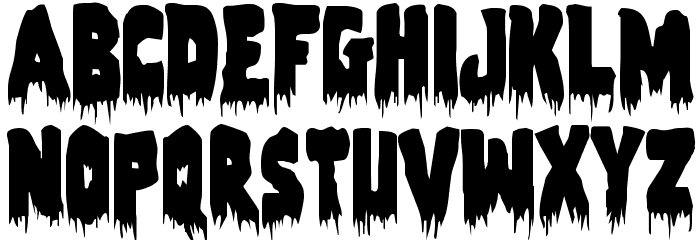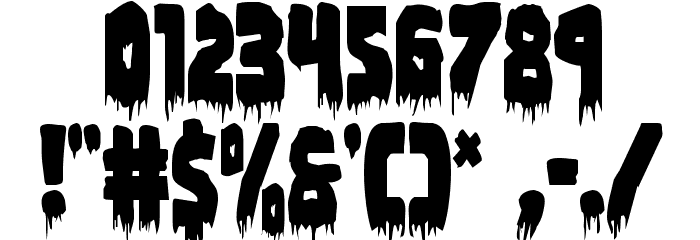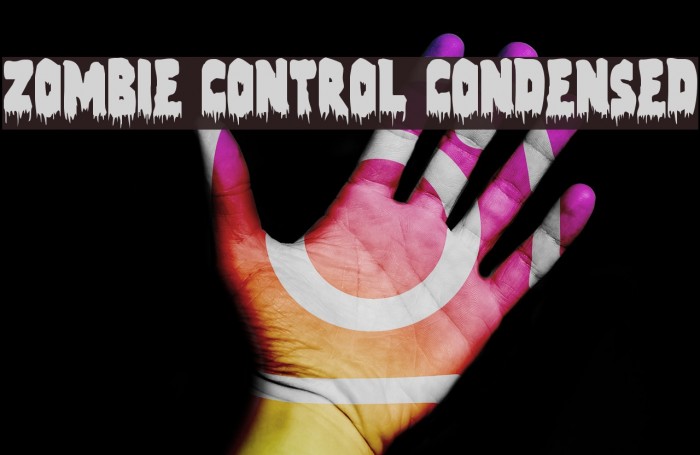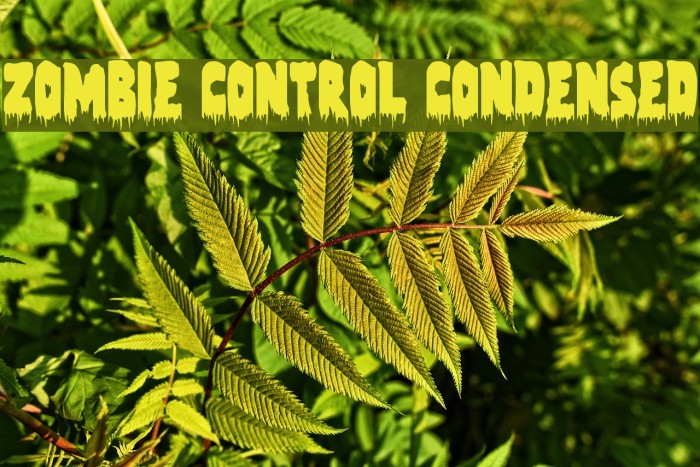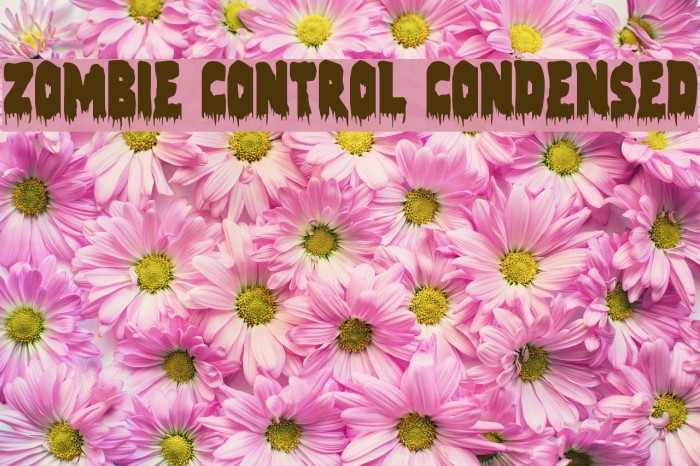
Zombie Control Condensed Font
This font features a bold, dripping style reminiscent of horror and Halloween themes. The characters appear as if they are melting or oozing, with irregular edges and a textured appearance that adds to the eerie aesthetic. The uppercase and lowercase letters maintain a consistent style, with each character having a unique, jagged form. Numbers and special characters follow the same design, ensuring a cohesive look across all text. The condensed nature of the font allows for more text in a smaller space, making it ideal for impactful headlines or titles. Its distinctive appearance makes it suitable for projects that require a spooky or dramatic flair.
A bold, dripping font perfect for horror-themed designs.
- Proposed Projects: Ideal for Halloween posters, horror movie titles, themed event invitations, and spooky merchandise designs.